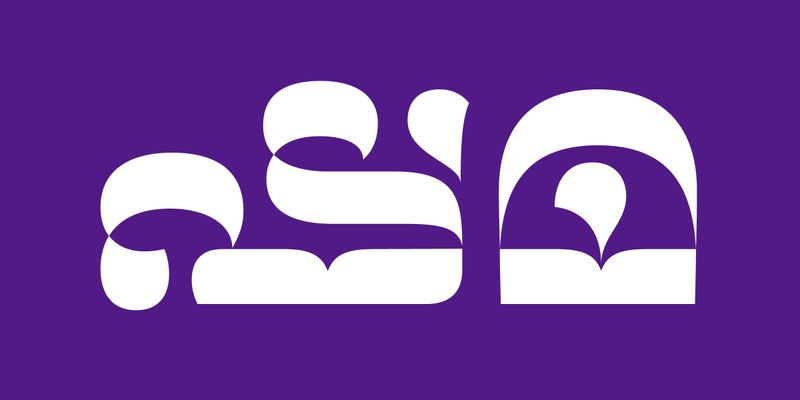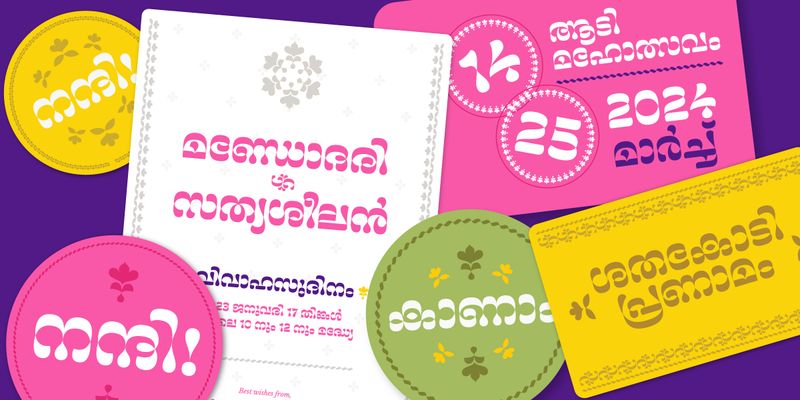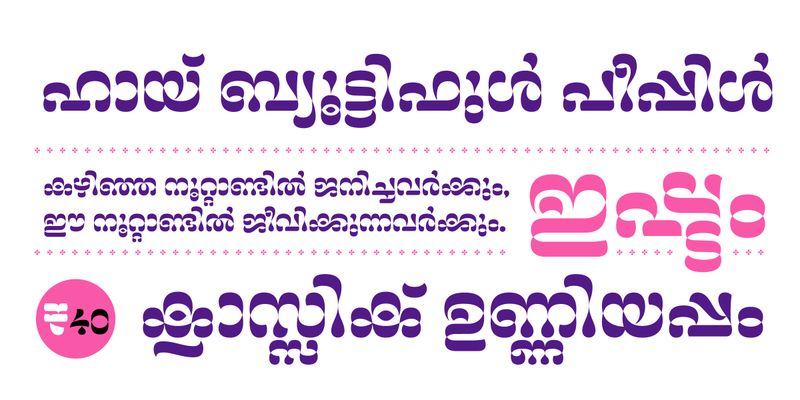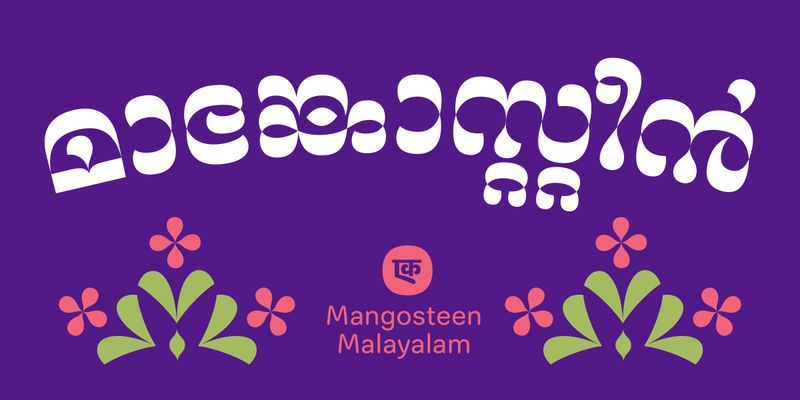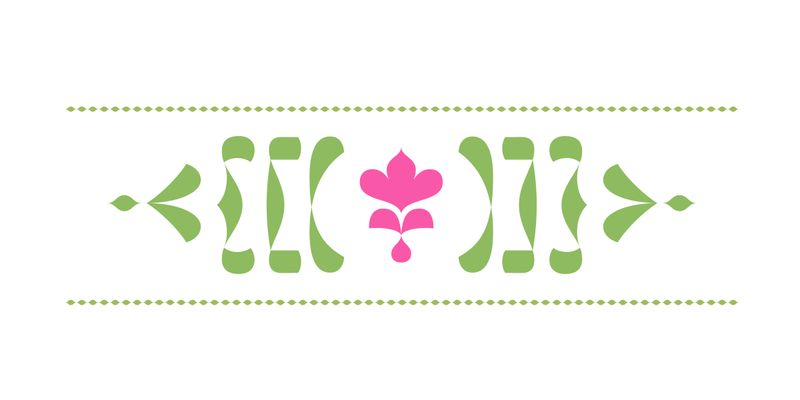
Mangosteen is a lyrical display typeface made with intersecting lines is reminiscent of ripples in water, twisted mango leaves and patterns of Kolam. While its rounded curves evoke a sense of comfort and cosiness, the twist in its contours adds a lively bounce and an unconventional contrast.
This feel-good, high contrast design with added motifs and borders, can lend its style to local brands, adorn pages of magazines, add charm to romantic movie posters and give a special touch to cards and invites.